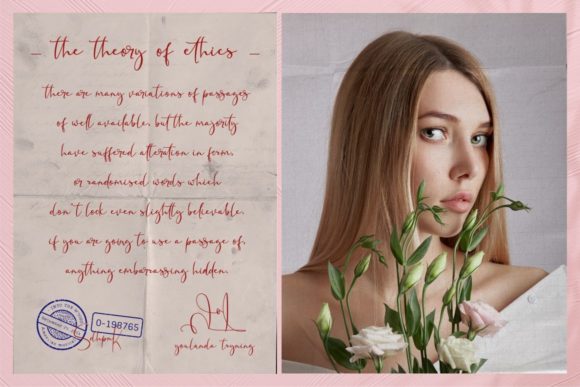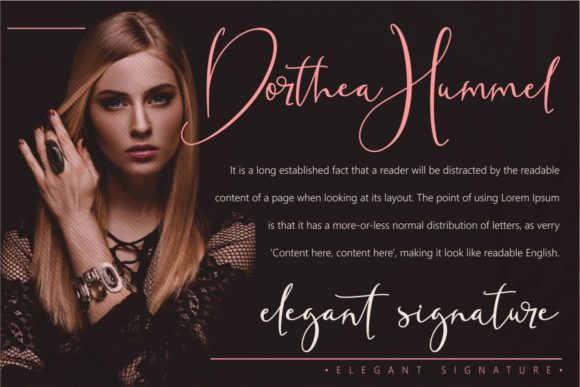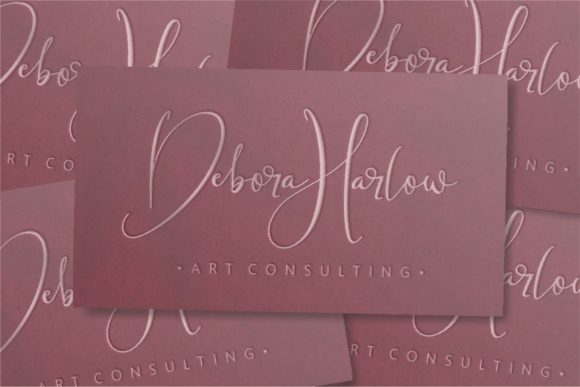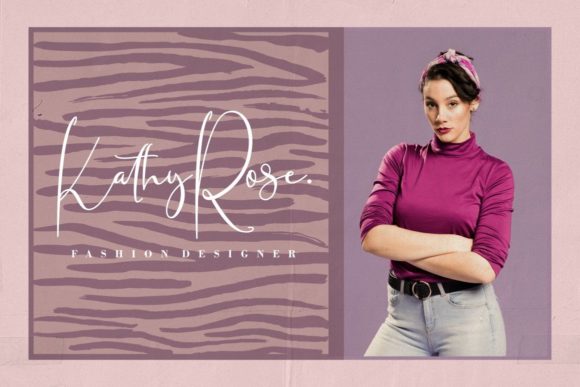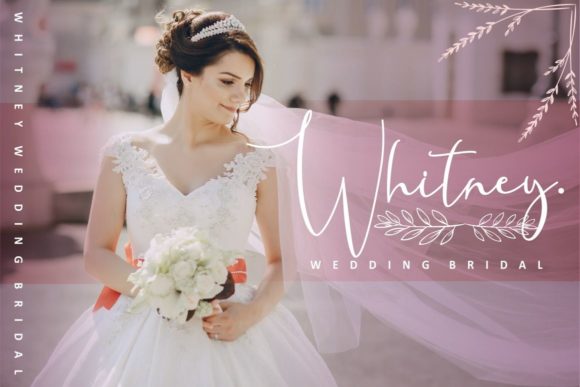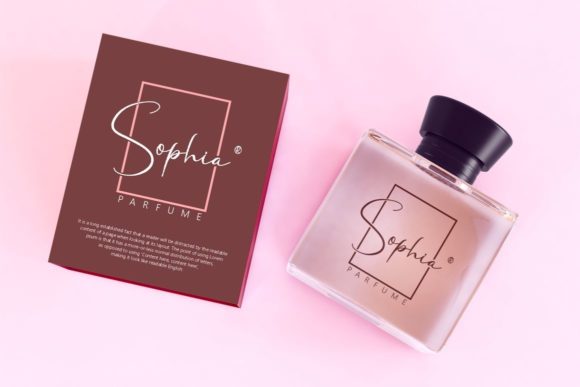
Introducing Fanish Signature Font: Elevate Your Designs with Elegance
Are you a designer or crafter looking for a font that can add a touch of sophistication and style to your work? Look no further than Fanish Signature Font. This stunning script font is perfect for creating beautiful wedding invitations, thank you cards, quotes, greeting cards, logos, business cards, and more. With its elegant and refined aesthetic, Fanish Signature Font is sure to take your designs to the next level.
What Makes Fanish Signature Font So Special?
Fanish Signature Font is a stylish and incredibly elegant script font that boasts a range of impressive features. One of the standout benefits of this font is its PUA (Private Use Area) encoding, which allows you to access all of the glyphs and swashes with ease. This means that you can effortlessly create stunning designs that are tailored to your specific needs.
The Perfect Font for Wedding Invitations and More
Wedding invitations, thank you cards, and other special occasion designs require a font that is both elegant and sophisticated. Fanish Signature Font fits the bill perfectly. Its refined script style and beautiful swashes make it ideal for creating romantic and memorable designs that will leave a lasting impression. Whether you’re a designer or crafter, this font is sure to become a go-to choice for all your wedding and event designs.
Endless Design Possibilities with Fanish Signature Font
Fanish Signature Font is incredibly versatile, making it perfect for a wide range of design applications. Some of the many ways you can use this font include:
- Wedding invitations and ceremony programs
- Quotes and social media graphics
- Stationery and journal covers
Why Choose Fanish Signature Font?
So why should you choose Fanish Signature Font for your next design project? Here are just a few compelling reasons:
- Elegant and sophisticated style: Fanish Signature Font boasts a refined and stylish aesthetic that is sure to impress.
- PUA encoded for easy access: With PUA encoding, you can effortlessly access all of the glyphs and swashes you need to create stunning designs.
- Highly versatile: This font can be used for a wide range of design applications, from wedding invitations to logos and branding materials.
Get Ready to Elevate Your Designs with Fanish Signature Font
If you’re looking for a font that can add a touch of elegance and sophistication to your designs, look no further than Fanish Signature Font. With its stunning script style, PUA encoding, and endless design possibilities, this font is sure to become a favorite among designers and crafters. So why wait? Download Fanish Signature Font today and start creating beautiful, professional-looking designs that will leave a lasting impression.
In conclusion, Fanish Signature Font is a stylish and incredibly elegant script font that is perfect for designers and crafters looking to add a touch of sophistication to their work. With its PUA encoding, versatile design possibilities, and easy-to-use interface, this font is sure to become a go-to choice for all your design needs. So why wait? Download Fanish Signature Font today and start elevating your designs to new heights.